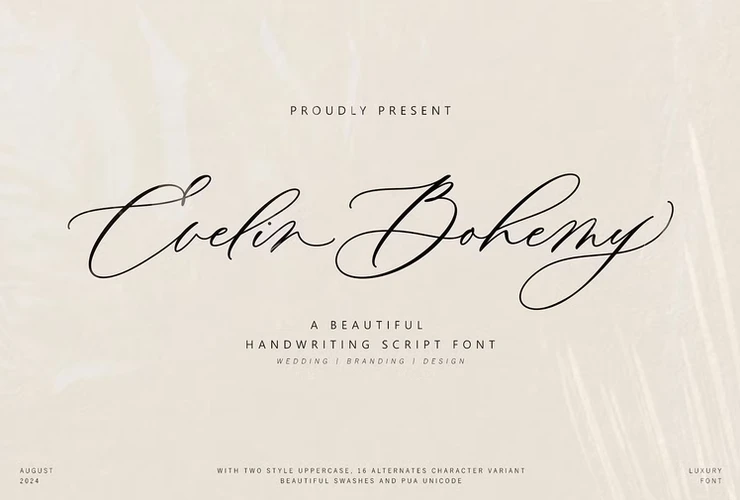
Evelin Bohemy: A Handwritten Script Font with Endless Creative Possibilities
Evelin Bohemy is a stunning handwritten script font designed by Jamal Creative Studio, perfect for a wide range of creative projects. This elegant font captures the essence of sophisticated handwriting, making it an excellent choice for branding, wedding invitations, greeting cards, posters, name cards, quotes, blog headers, logos, fashion, apparel, stationery, and more. With over 500 glyphs, Evelin Bohemy offers an extensive range of stylistic options, ensuring that your designs will stand out with unique, personal touches.
Why Evelin Bohemy Stands Out
Evelin Bohemy’s charm lies in its versatility and attention to detail. The font includes a variety of alternate characters and OpenType features, such as Swashes, Stylistic Sets, Stylistic Alternates, and Contextual Alternates. These features make it easy for designers to create intricate and personalized designs. Whether you’re crafting a logo for a fashion brand or designing elegant wedding invitations, Evelin Bohemy provides the tools to bring your vision to life.
Key Features of Evelin Bohemy:
Extensive Glyph Set: With over 500 glyphs, Evelin Bohemy offers a rich variety of characters, including uppercase (with two styles), lowercase, punctuation, numbers, and international language support.
OpenType Features: The font is packed with OpenType features like Stylistic Alternates, Stylistic Sets (1-16), and Contextual Alternates, allowing for creative flexibility.
Versatile Use: This font is ideal for a wide range of projects, from branding and logo design to invitations and fashion-related content.
Elevate Your Designs with Evelin Bohemy
Evelin Bohemy is more than just a font; it’s a gateway to creating elegant, handwritten designs that leave a lasting impression. Its versatility makes it suitable for both professional and personal projects, ensuring your work stands out in any context. Whether you’re a designer, craftsman, or someone looking to add a touch of elegance to their work, Evelin Bohemy is the perfect tool to express creativity and style.
Explore Evelin Bohemy and discover how this beautiful handwritten script font can enhance your next project.